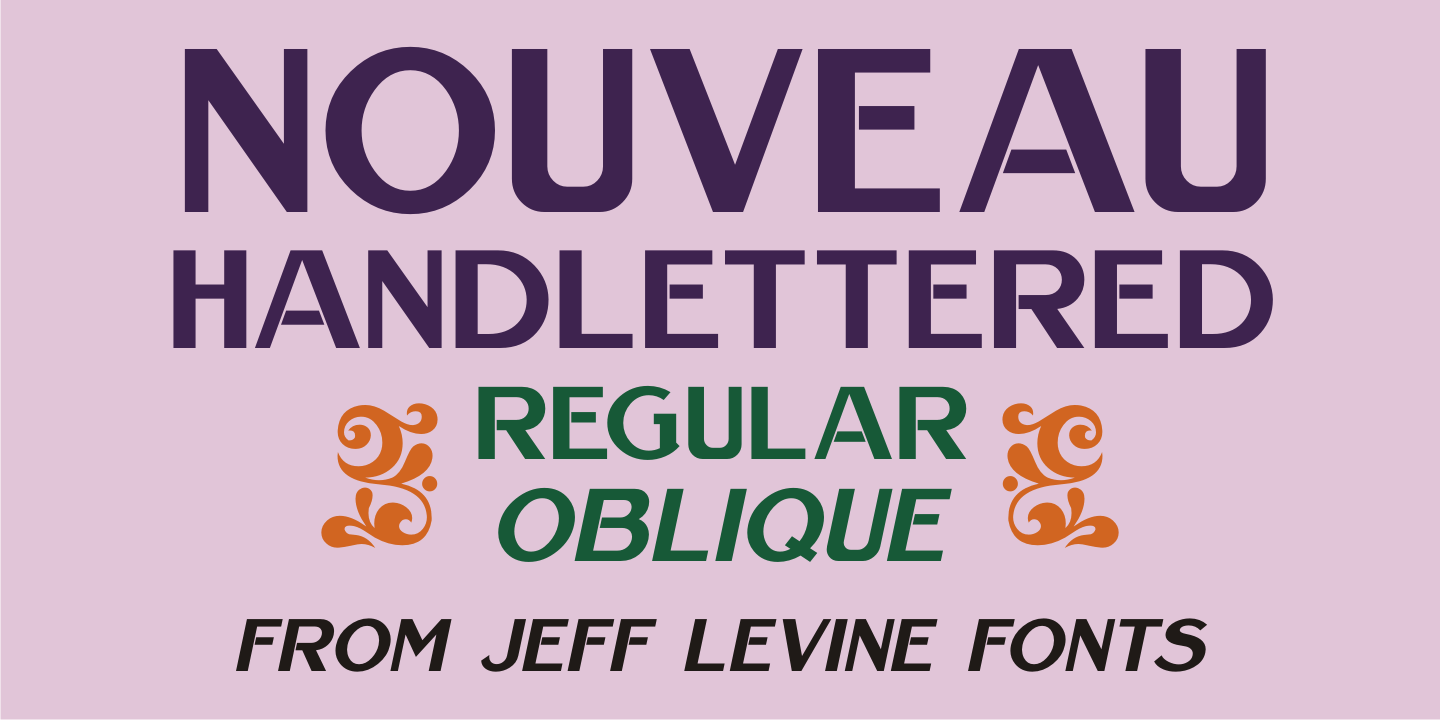
Nouveau Handlettered
The roots of Nouveau Handlettered JNL go back to the sheet music cover for the 1917 song '(Someday) Somebody's Gonna Get You”.
This simple style of sans serif titling has the casual, imperfect charm of the pen and ink lettering so prevalent in the decades before metal type and other technical advancements made the craft almost obsolete.
The typeface is available in both regular and oblique versions.
Nouveau Handlettered JNL Regular by Jeff Levine Fonts